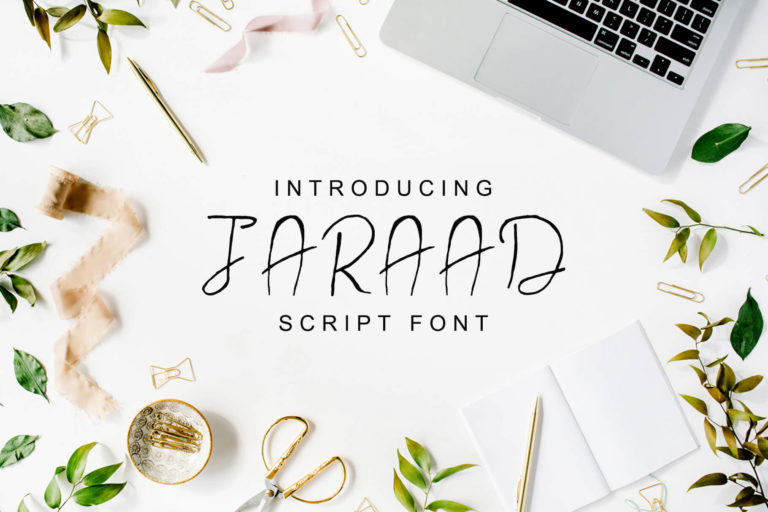
- Jaraad Script Font
Jaraad Script Typeface is a beautiful handwritten font which contains 4 weights and that is specifically designed for minimal projects. It looks impressive for branding, websites, clean designs, logos, headlines, banners and templates etc. It is in uppercase style only.
- Font Weight: Regular, Italic, Outline and Bold
Jaraad Font Features:
- Uppercase Letters
- Lowercase Letters